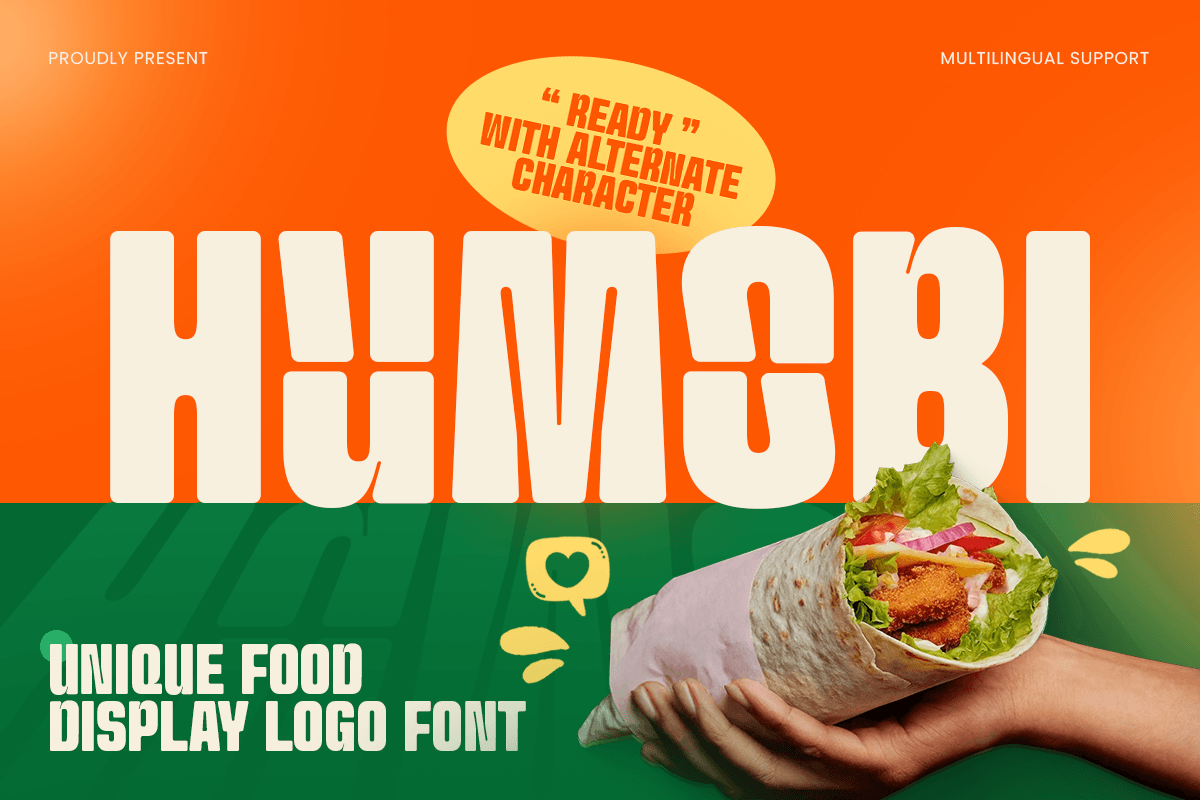
Humobi
-Food Display Logo FontHumobi - Food Display Logo Font
HUMOBI is a unique food display logo font designed to bring delicious personality and bold visual charm to your typography. With expressive letterforms, friendly shapes, and a strong display rhythm, this typeface creates an appetizing tone that feels playful, memorable, and instantly brand-ready.
Built for food-focused branding, HUMOBI works beautifully across restaurant logos, café menus, product packaging, snack labels, posters, signage, social media promotions, and digital marketing visuals. Its unique display structure keeps every headline clear and impactful while adding a flavorful personality across both print and digital layouts.
Whether you’re launching a food brand, designing menu highlights, creating packaging for snacks or beverages, or building cheerful culinary campaigns, HUMOBI provides a bold typographic foundation that makes every word feel tasty, fresh, and full of character.
Inspiration Behind HUMOBI
HUMOBI is inspired by modern food packaging and playful culinary branding—where expressive shapes, friendly rhythm, and bold visual weight make products feel more appetizing and approachable. The design focuses on unique display character and flavorful balance to support food branding with a fresh, memorable look.
HUMOBI Font Features:
Unique food display letterforms optimized for logo and branding design
Bold friendly structure with appetizing visual personality
Strong readability for menus, packaging, and promotional headlines
Perfect for restaurants, cafés, snacks, and food product branding
Food logos, restaurant branding, and café identity systems
Menu headers, specials boards, and promotional graphics
Packaging, labels, stickers, and snack product branding
Posters, signage, banners, and in-store marketing visuals
Social media promotions and cheerful food campaign designs
Make your food branding unforgettable with HUMOBI—a unique display logo font crafted for delicious visual impact. 🍔✨